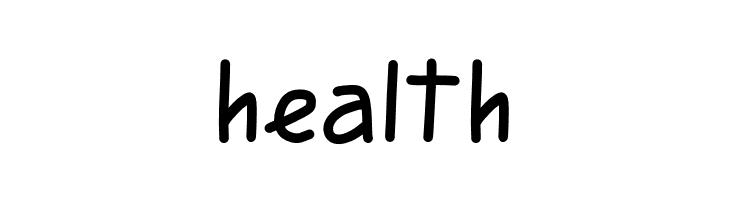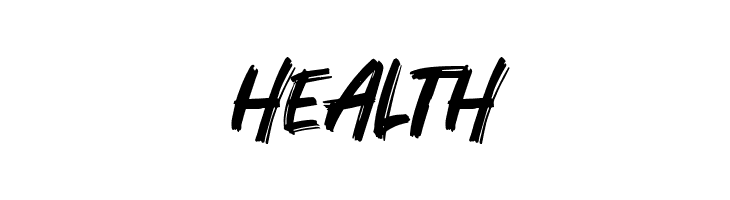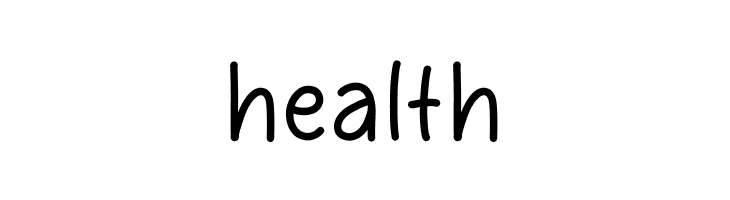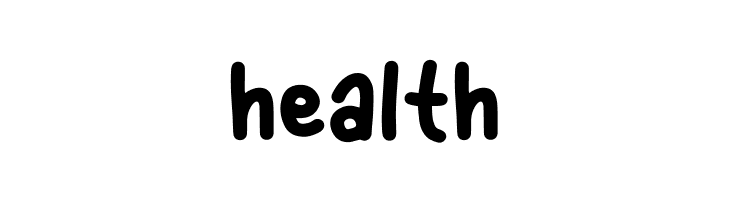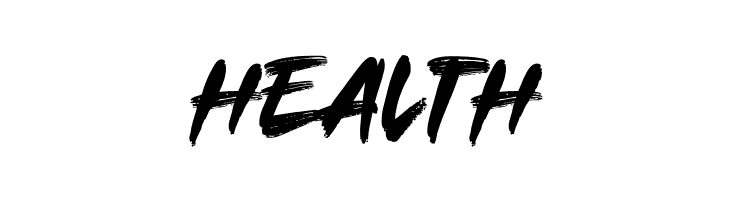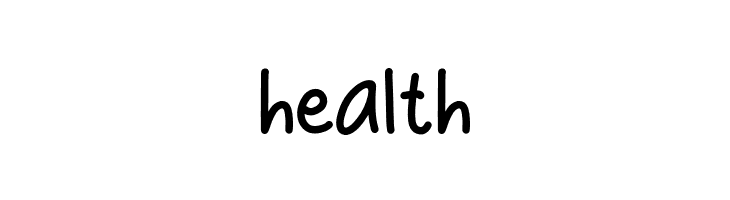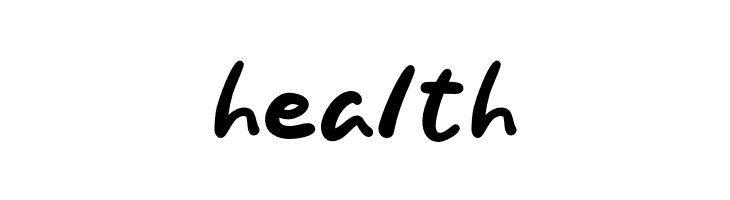
A playful, bold handwritten font with rounded, consistent strokes.
A playful, handwritten font with rounded, consistent strokes and a casual feel.
A bold, dynamic script font with a hand-drawn, brush-like style.
A bold, brush-style font with dynamic and expressive strokes.
A playful, rounded font with smooth curves and a friendly appearance.
A playful, handwritten font with rounded, consistent strokes and a friendly vibe.
A playful, bold, and rounded font with a hand-drawn feel.
A graceful, cursive script font with elegant, flowing strokes.
A bold, geometric font with a futuristic and modern design.
A bold, brush-style font with an energetic and dynamic appearance.
A lively, handwritten font with fluid strokes and a casual elegance.
A bold, dynamic brush script font with expressive strokes and a hand-painted appearance.
A lively, cursive handwritten font with fluid strokes.
A bold, decorative font with a hand-drawn, textured appearance.
A fluid, elegant handwritten font with a natural, personal touch.
A modern, geometric font with bold lines and rounded edges, perfect for futuristic designs.
A playful, handwritten-style font with bold, rounded characters.
A playful, energetic handwritten font with irregular strokes and dynamic flow.
A playful, handwritten font with rounded, consistent strokes and a casual vibe.
A bold, brush-style font with dynamic and energetic strokes.
A fluid, cursive font with a natural handwritten style.
A bold, playful script font with a hand-drawn, whimsical style.
A bold, brush-style font with dynamic, hand-painted strokes.
A bold, flowing script font with elegant, cursive strokes and seamless connections.
A bold, geometric font with strong lines and modern appeal.
A modern, elegant handwritten font with fluid strokes and a dynamic slant.
A bold, handwritten-style font with a dynamic and modern appearance.
A bold, brush-style font with dynamic, hand-painted strokes.
A bold, energetic script font with a hand-drawn feel and dynamic strokes.
A delicate, handwritten script font with fluid, connected strokes.
A bold, distressed brush-style font with a rugged, energetic appearance.
A bold, flowing script font with a dynamic and elegant handwritten style.
A dynamic and fluid handwritten font with a cursive style.
A bold, brushstroke font with an energetic and artistic style.